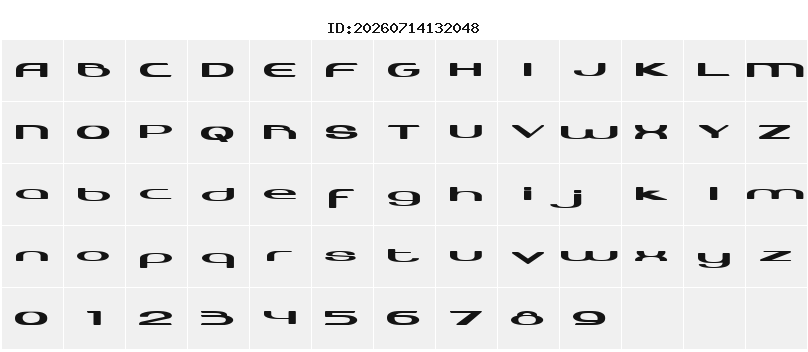
HarabaraNeo Preview
• Font Name: HarabaraNeo
• Full Font Name: HarabaraNeo
About HarabaraNeo.ttf
HarabaraNeo.ttf is a modern, elegant sans-serif font designed for ultimate readability and visual harmony. Perfect for branding, headlines, web design, and print materials.